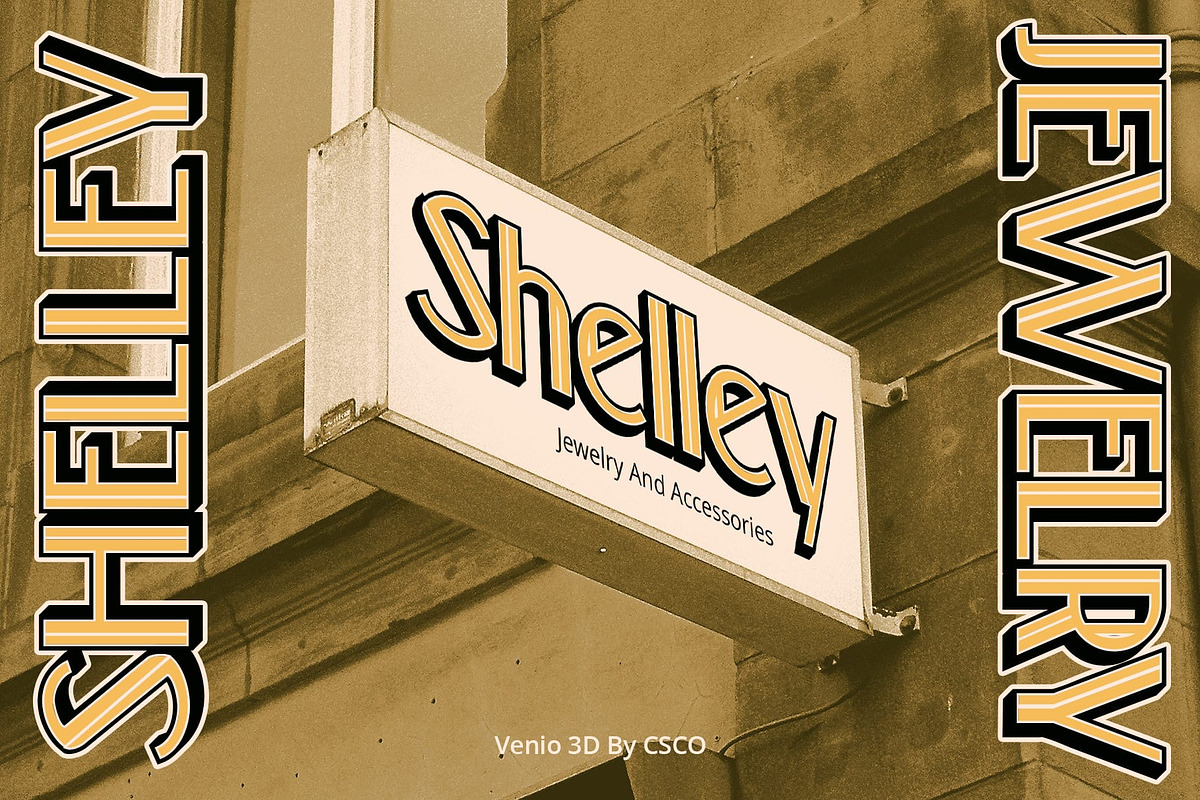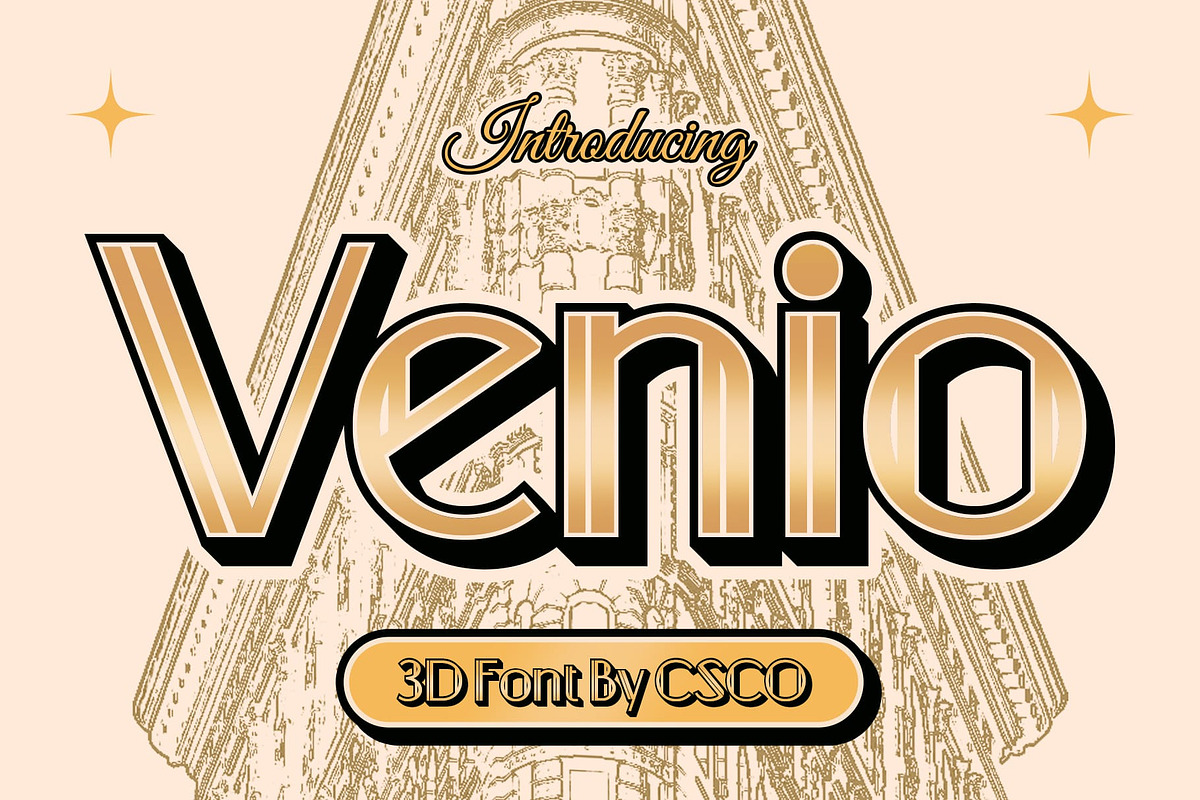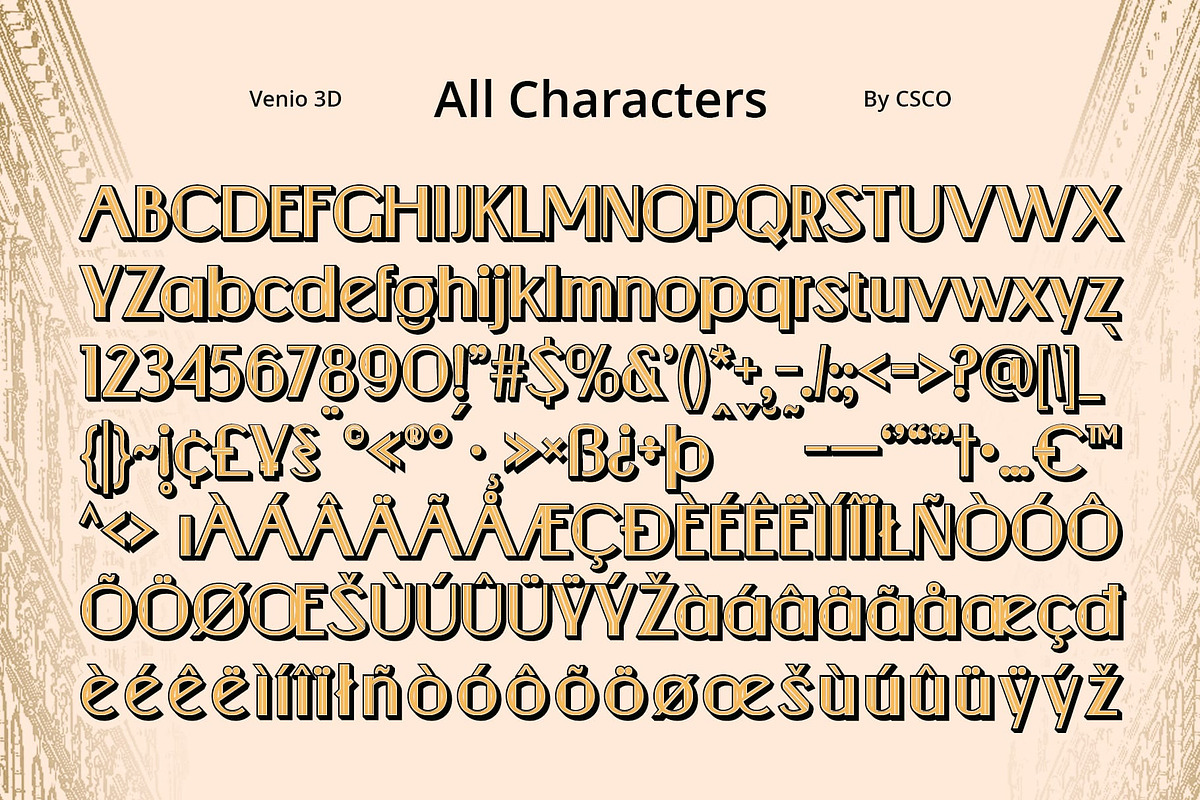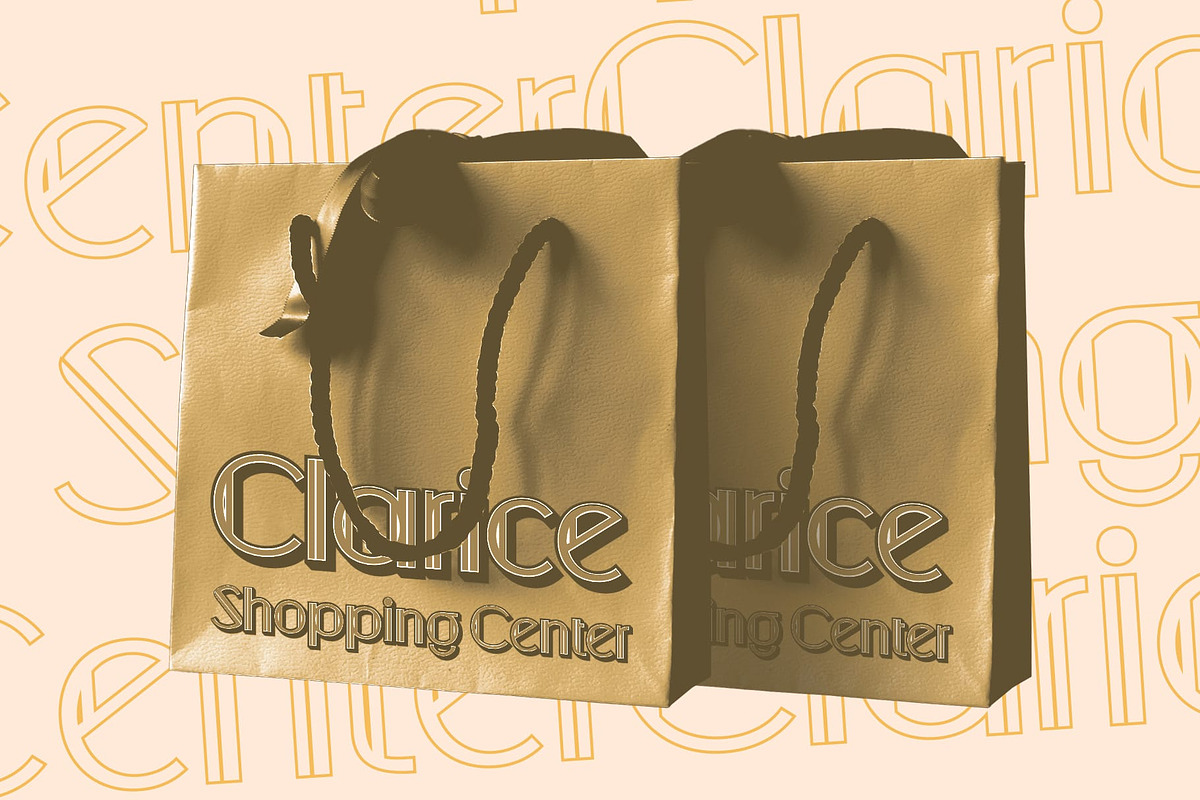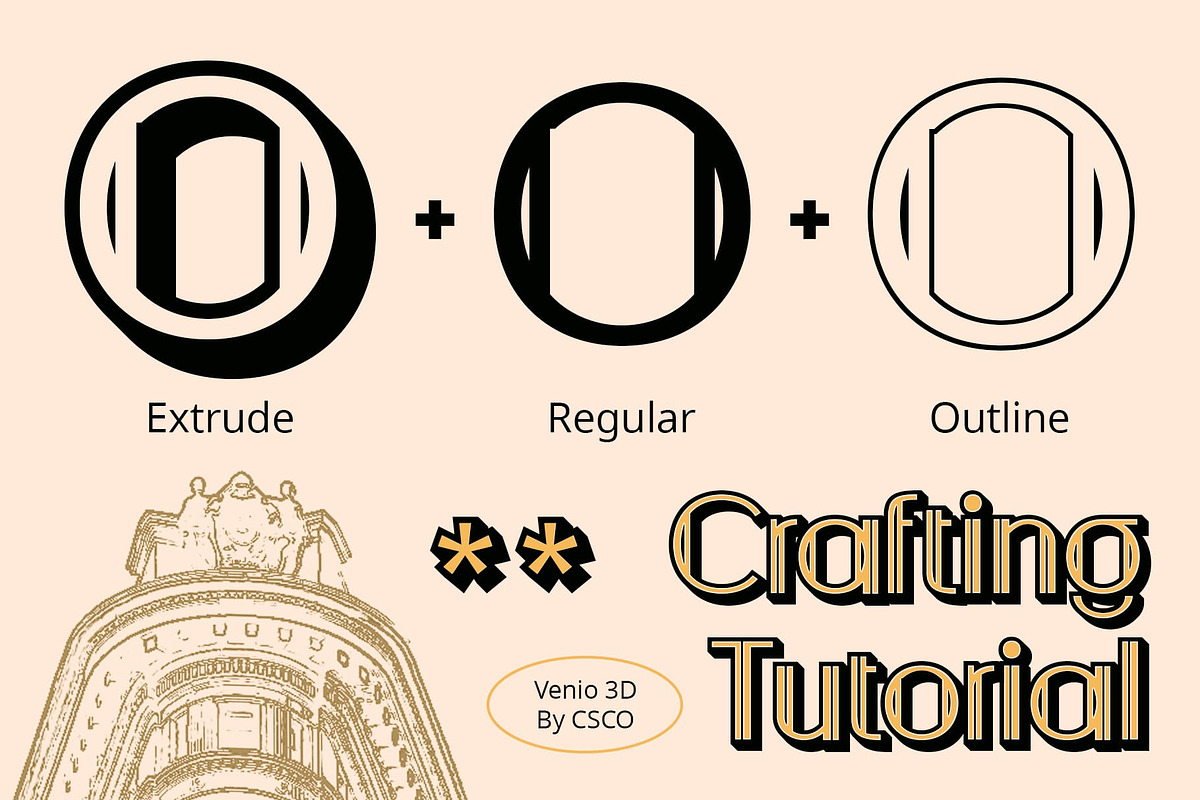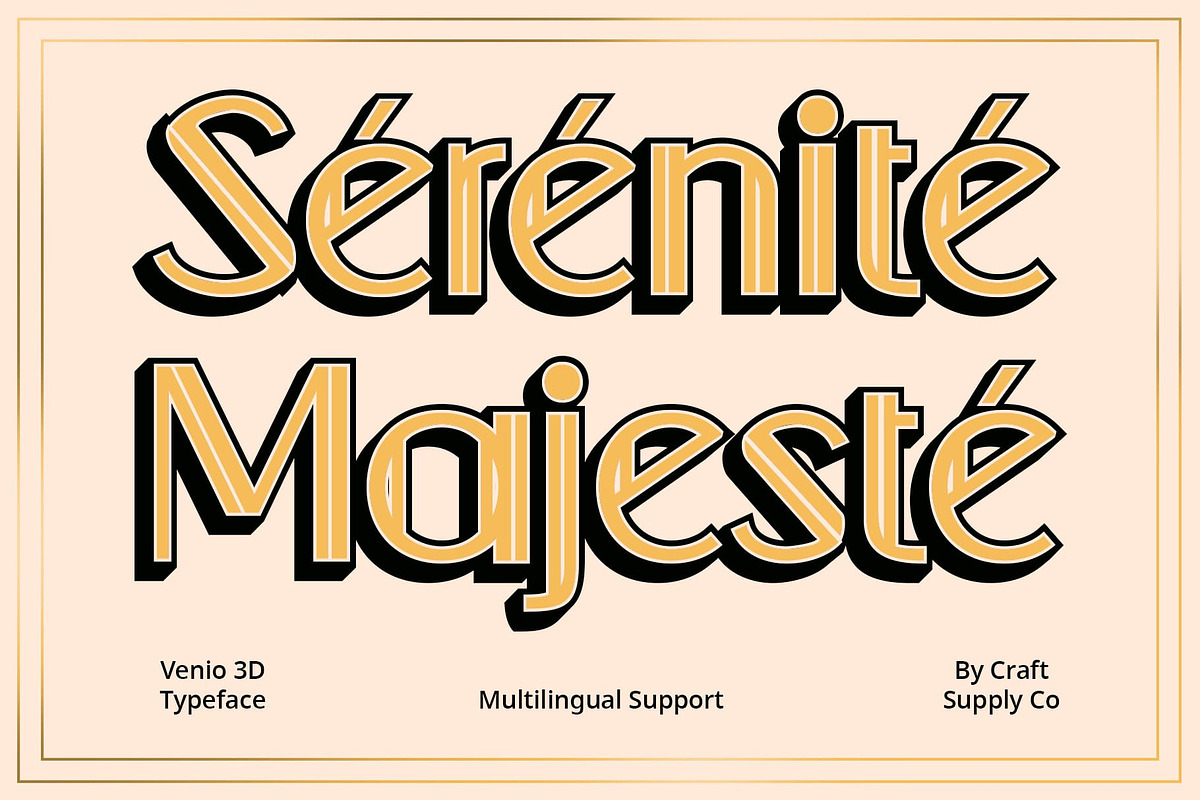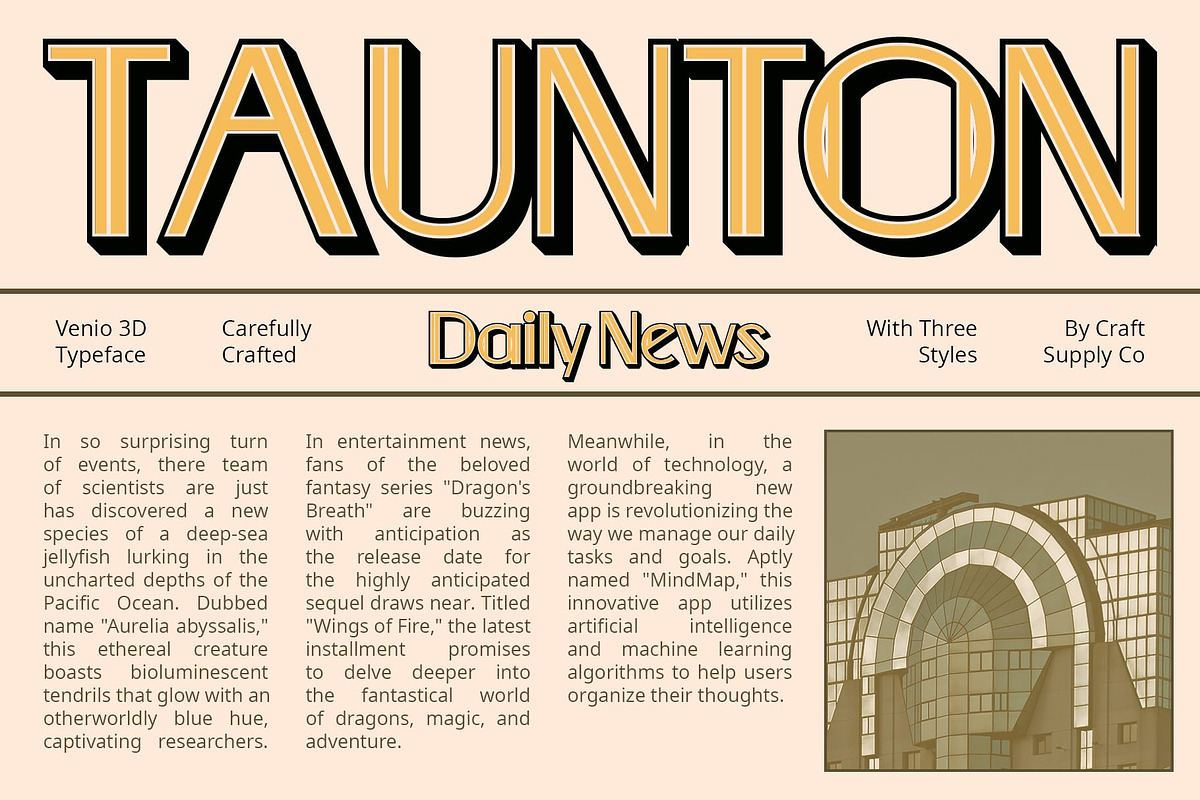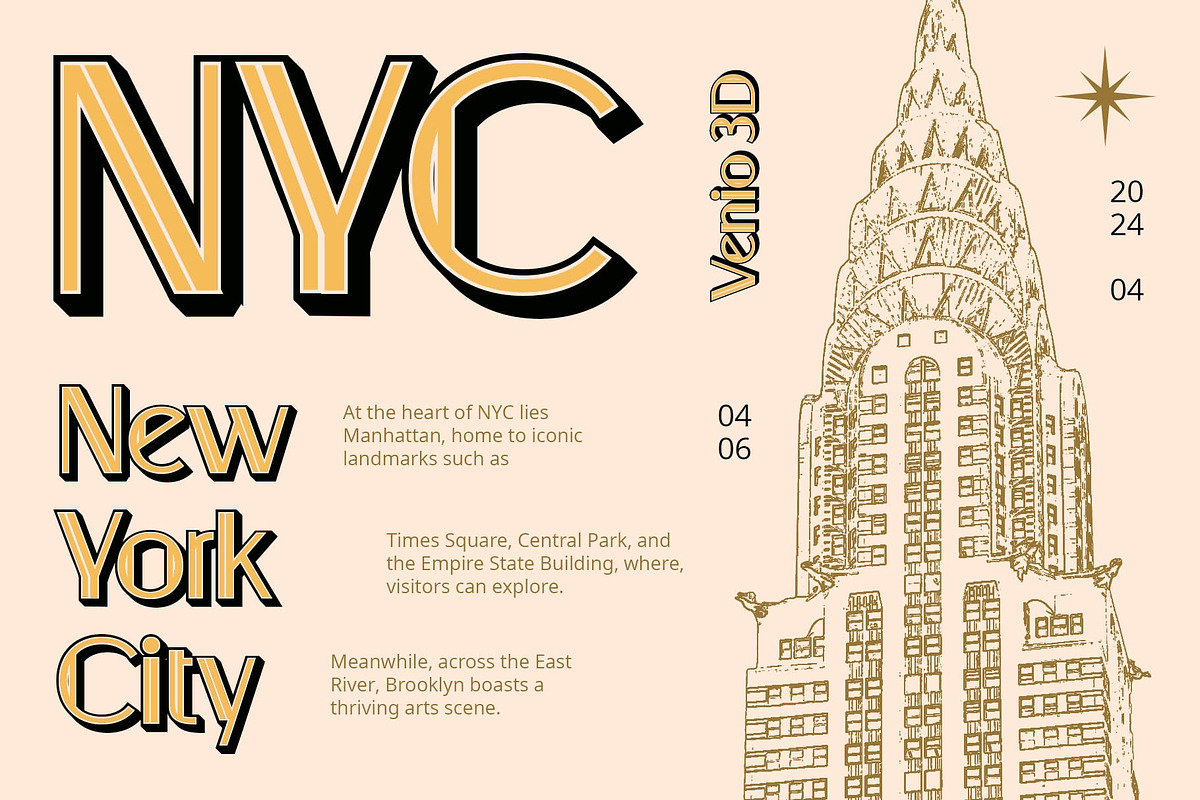
Venio 3D
Venio 3D: A Modern Tribute to Art Deco
Inspired by Art Deco Venio 3D draws inspiration from the iconic Art Deco movement, showcasing sleek lines and geometric shapes reminiscent of the Roaring Twenties. Its design pays homage to the timeless elegance of the era.
Dynamic 3D Effects With its stunning 3D effects, This font adds depth and dimension to each character, elevating its visual impact. The intricate details and shadows create a sense of movement and vitality, capturing attention effortlessly.
Tailored for Display Crafted specifically for display purposes, This font excels in grabbing attention and making a statement. Whether used in signage, posters, or digital graphics, its bold presence ensures maximum visibility and impact.
Versatile Applications Beyond its Art Deco-inspired design, This font offers versatility in application. From branding projects to editorial layouts, its modern aesthetic complements various design styles, adding a touch of sophistication and flair.
Contemporary Art Deco Marvel This font stands as a contemporary marvel that pays homage to the timeless allure of Art Deco. With its striking 3D effects and versatile design, it emerges as the perfect choice for those seeking to infuse their projects with the glamour and sophistication of the Jazz Age. Step into the world of This font and unleash the power of Art Deco-inspired typography in your designs.